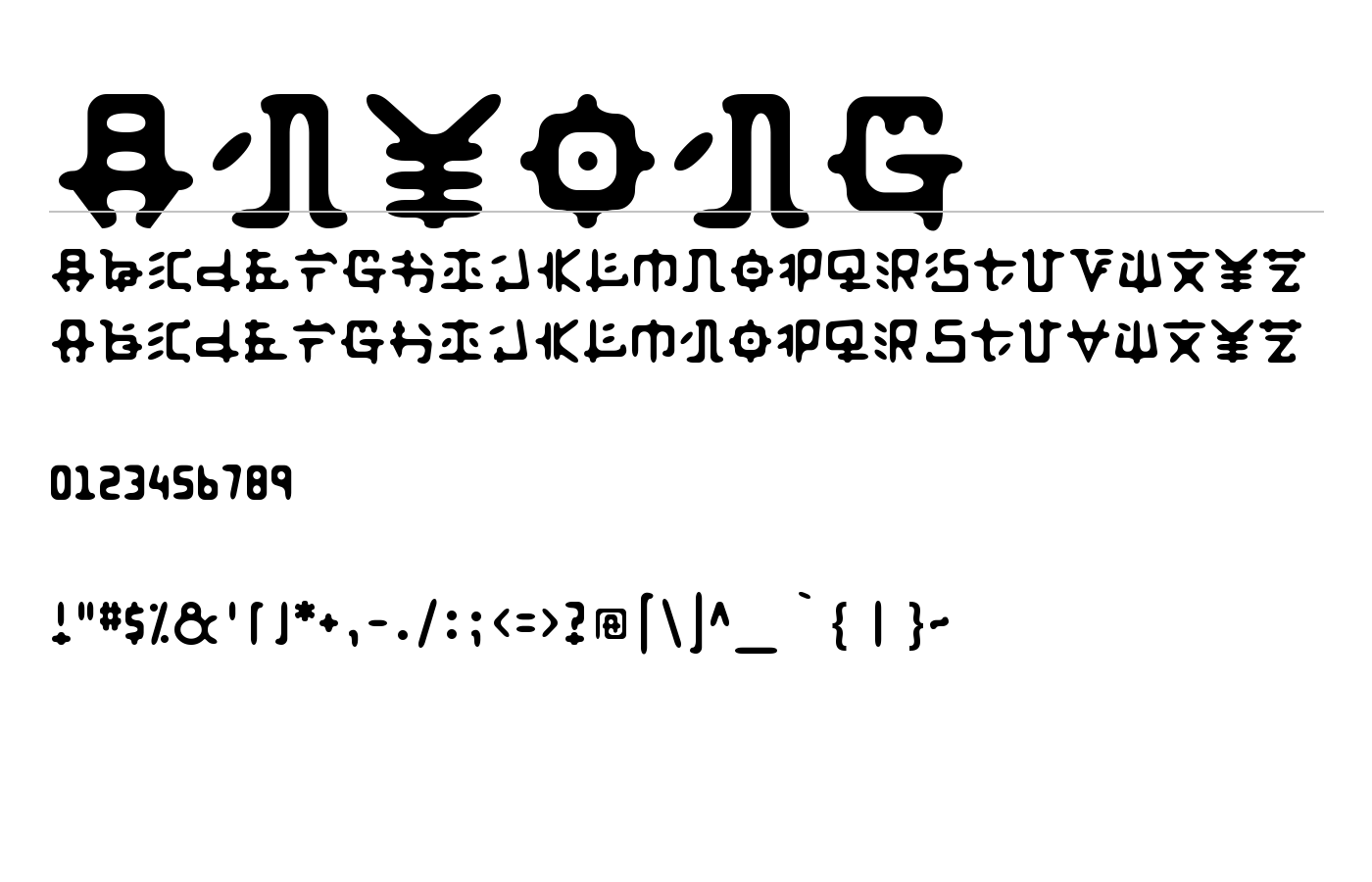
Anyong Font is a distinctive display typeface featuring bold, rounded shapes with quirky, organic curves and unique ornamental details that give it a playful and futuristic vibe. Its compact letterforms and consistent weight make it stand out in headlines, logos, or creative projects where a fun and unconventional style is desired. This font works especially well for branding and designs that seek a modern, whimsical edge with a touch of personality.
Anyong Font